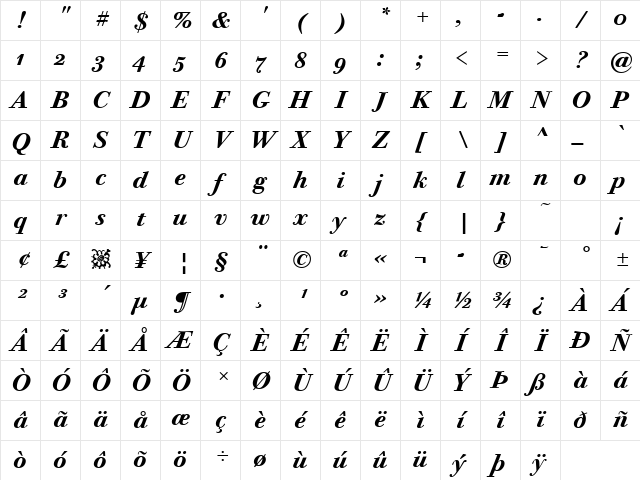
Bodoni Twelve OS ITC TT BoldIta
Complete Bodoni Twelve OS ITC TT BoldIta glyph index. Displaying only characters natively supported by Bodoni Twelve OS ITC TT BoldIta font.
Design Context for Bodoni Twelve OS ITC TT
Bodoni Twelve OS ITC TT is a composed and adaptable typeface that performs quietly and consistently across a wide range of design contexts. Its bold stroke weight gives it real presence on the page.